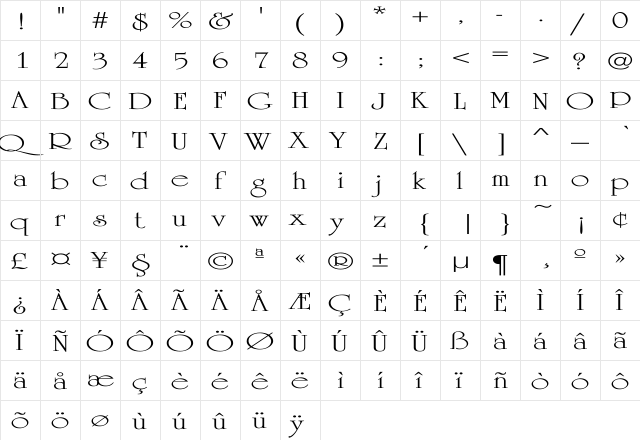
University Ex Regular
Design Context for University Ex Typeface
University Ex takes a measured approach to typography — its balanced proportions and neutral character make it a reliable workhorse for both digital and print work.
Pro Tip: Use University Ex in both headline and body roles to test its range before committing to a single application.